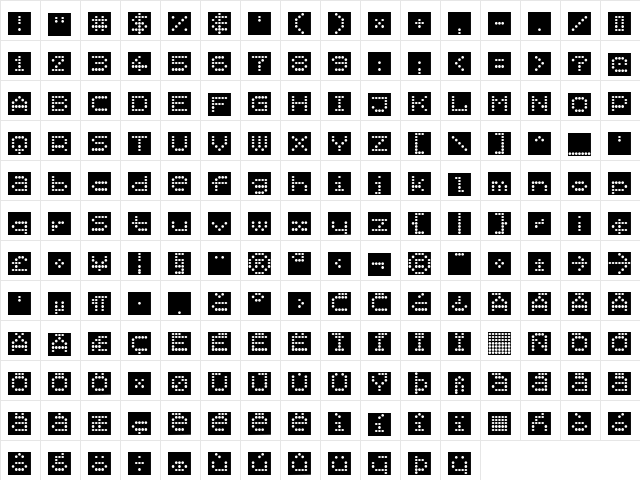
Semafor Regular
Design Context for Semafor Typeface
Semafor is a composed and adaptable typeface that performs quietly and consistently across a wide range of design contexts.